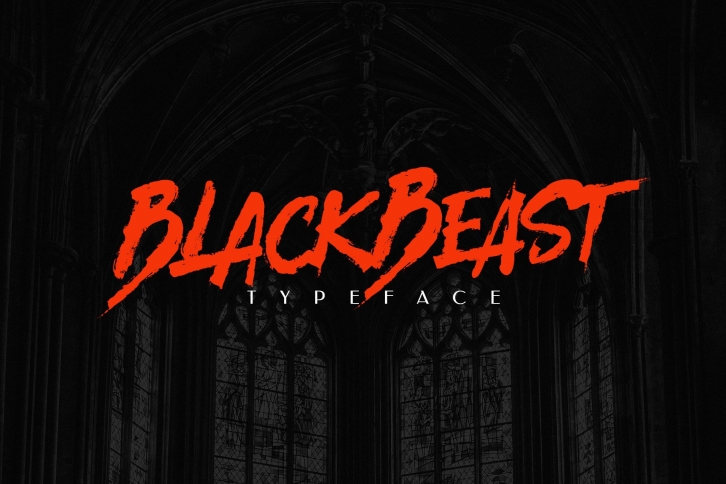
â– BlackBeast Typeface v1 is a dapper handwritten font with a personal charm. With hard strokes and a signature style, Black Beast is perfect for branding projects, labeling, clothing, movie sceen, poster, movie title, album covers, logos, etc.